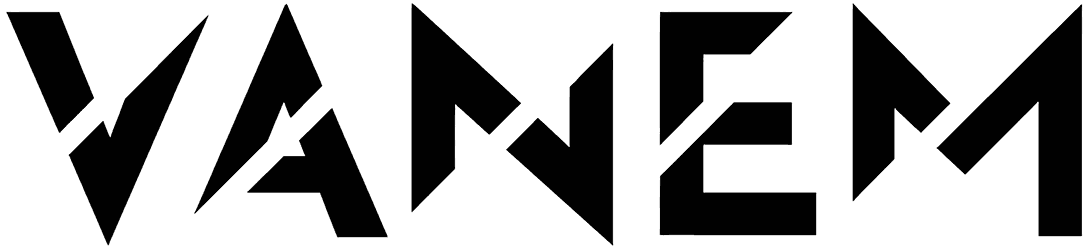
Vanem Font
The whole point of applying a space font like the present item is to convey an ultramodern and strong vibe. This poster font, with its cuted letters, can perfectly amp up your innovative layout even without lowercase letters. Benefit from the Vanem font and create a space poster or anything else.